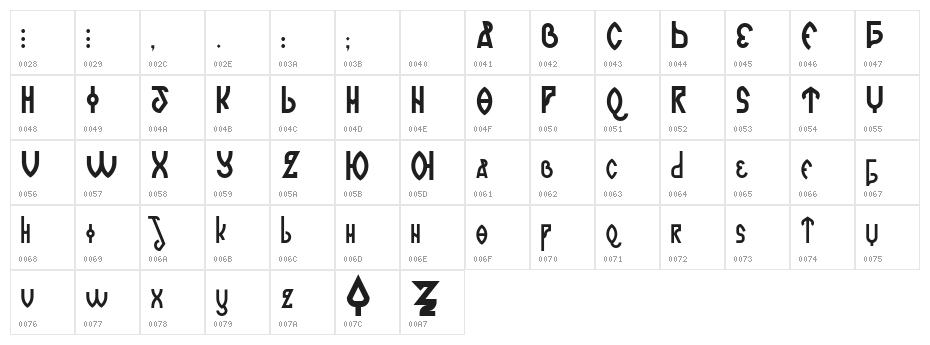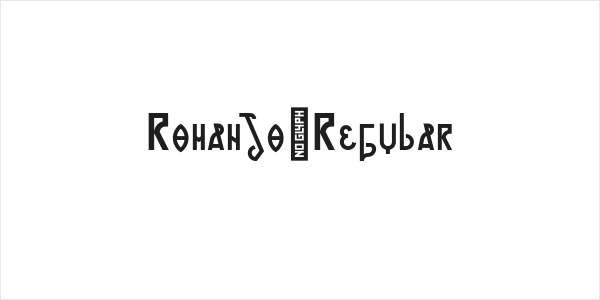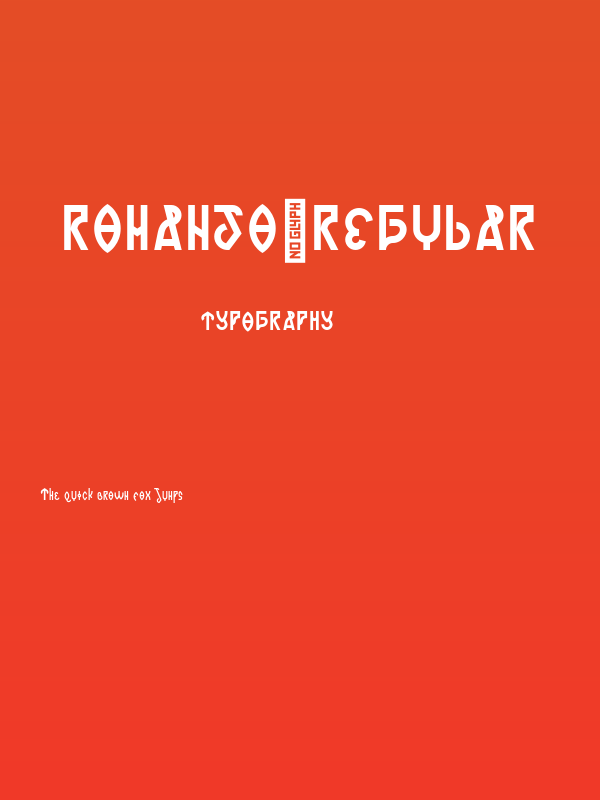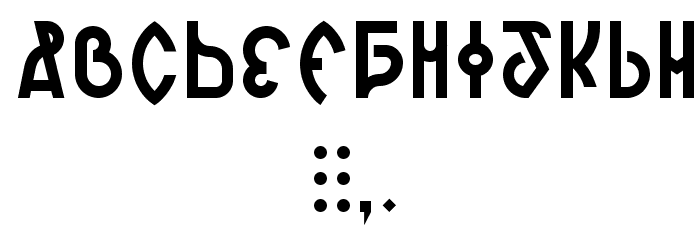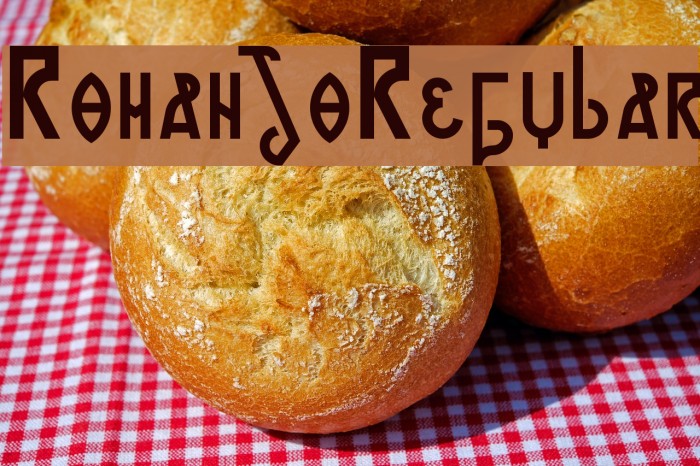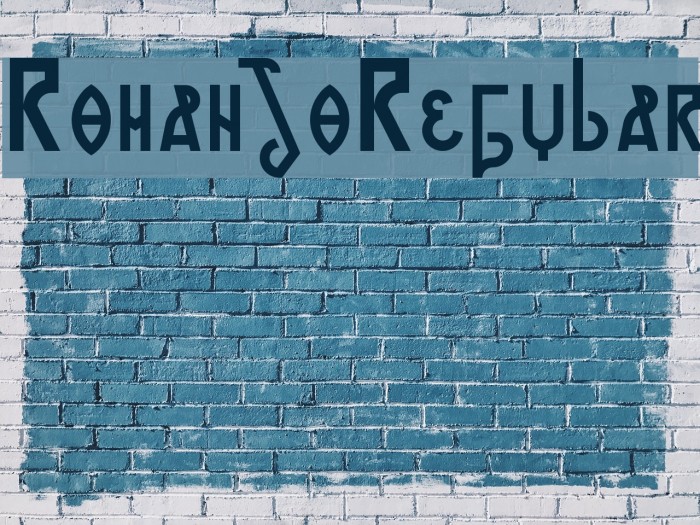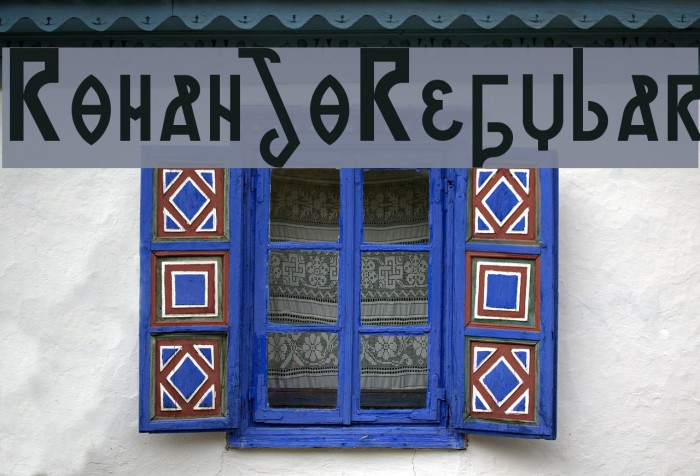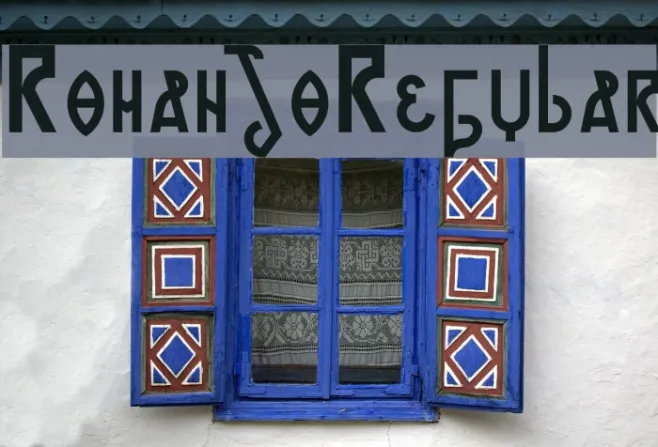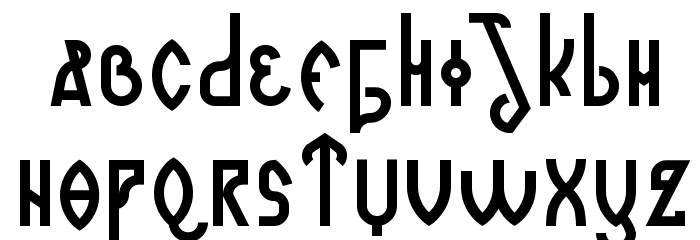
Romanjo-Regular Font
Romanjo-Regular Description
This font features a unique and bold design with a strong geometric influence. The characters are crafted with sharp angles and distinct curves, creating a striking visual impact. The uppercase and lowercase letters share a consistent style, with some characters incorporating unusual shapes and forms. The font's overall appearance is both modern and decorative, making it stand out in any design. The numbers and special characters maintain the same stylistic approach, ensuring a cohesive look across all text elements.
| Proposed Projects | Ideal for branding, posters, and titles where a strong visual impact is desired. |